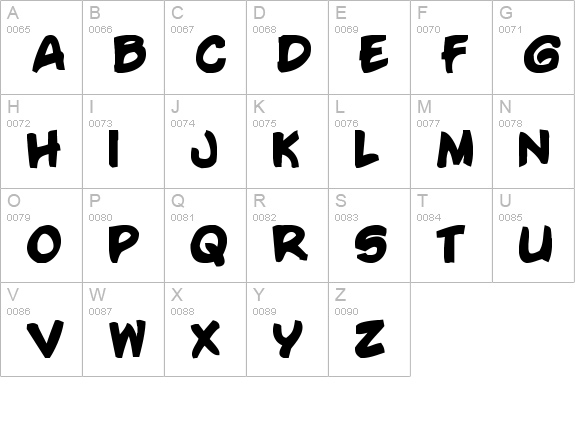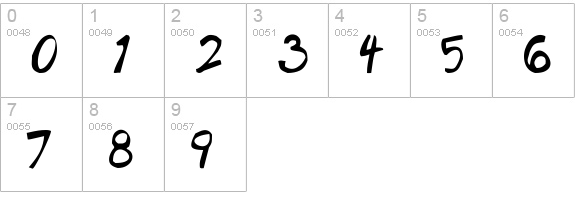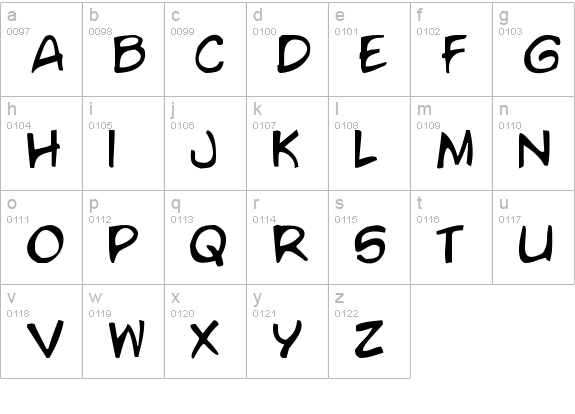
Voodoo Doll Font Details
Introducing the captivating Voodoo Doll font, a mesmerizing typeface that brings a touch of enchantment to your designs. Crafted with intricate details and a hint of mysticism, this font is perfect for projects that demand both elegance and intrigue. Voodoo Doll font features an array of beautifully designed characters, each carefully crafted to evoke a sense of curiosity and fascination. Its unique and spellbinding curves effortlessly blend together, creating a harmonious flow that is sure to capture attention. Whether you are designing a poster, a book cover, or a logo, Voodoo Doll font will add an element of intrigue and allure to your work. Its versatility allows it to be used in a variety of settings, from gothic-inspired designs to modern and edgy creations. What makes Voodoo Doll font even more enticing is that it is absolutely free! Yes, you read that right. This captivating font is freely available to download at FontsMarket.com, a trusted source for high-quality fonts. Now, you can effortlessly add a touch of enchantment to your designs without breaking the bank. Don't miss out on the opportunity to elevate your designs with the alluring Voodoo Doll font. Download it for free today at FontsMarket.com and let your creativity take flight. Unleash the magic and captivate your audience with this mesmerizing typeface.